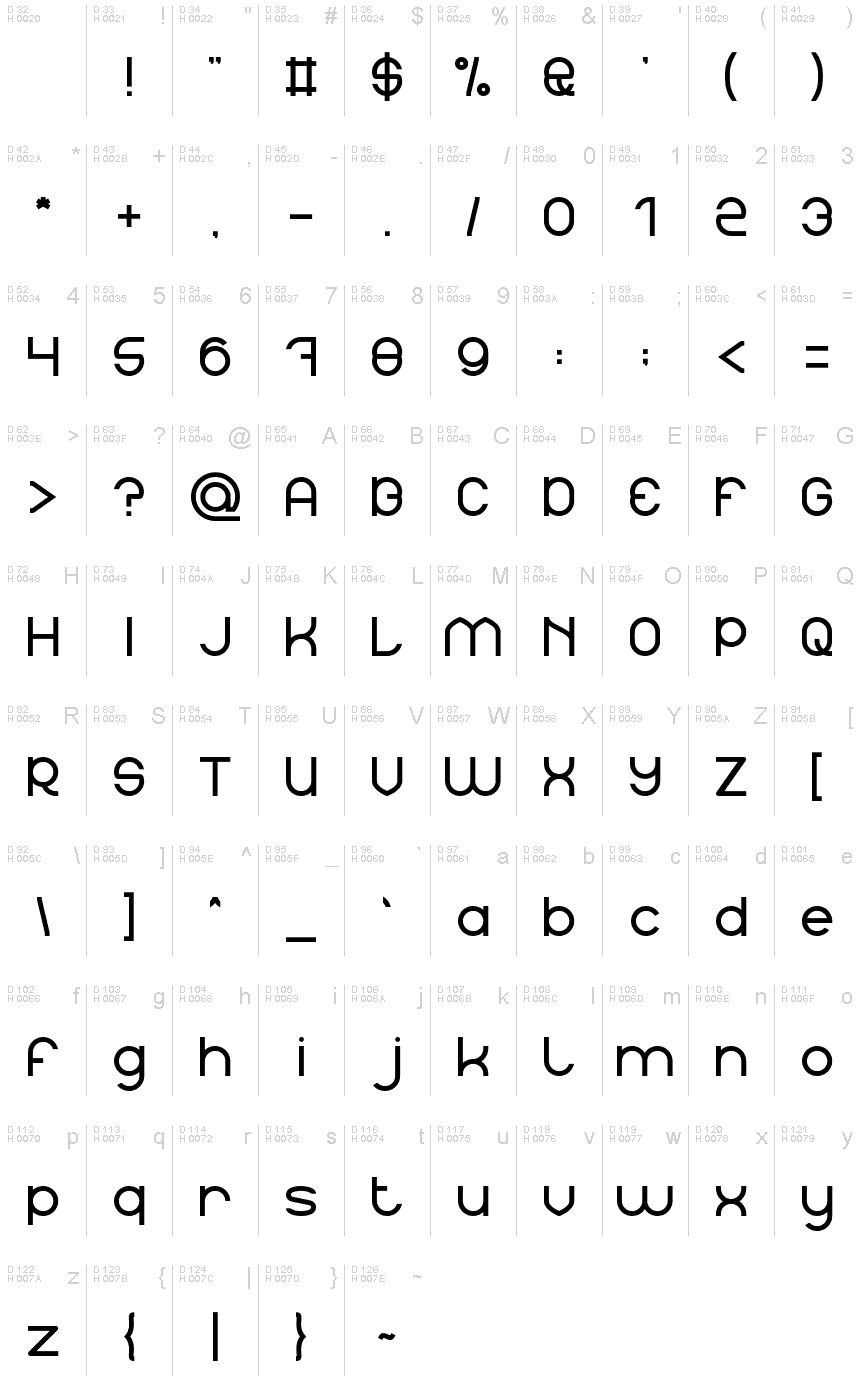
CYBORG
Cycorg, a visionary display font by weknow, blends futuristic design with a semi-light weight. With its sleek and modern aesthetics, Cycorg is the perfect choice for innovative technology projects, sci-fi book covers, futuristic video game titles, and cutting-edge graphic designs. Its clean lines and distinct letterforms make it ideal for branding tech startups or creating attention-grabbing headlines. Let Cycorg's semi-light font style captivate your audience and transport them to a world where innovation knows no bounds.